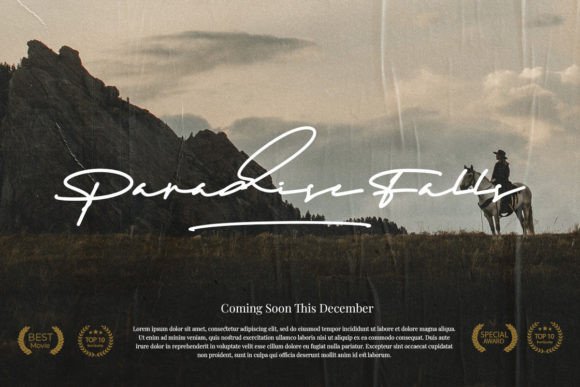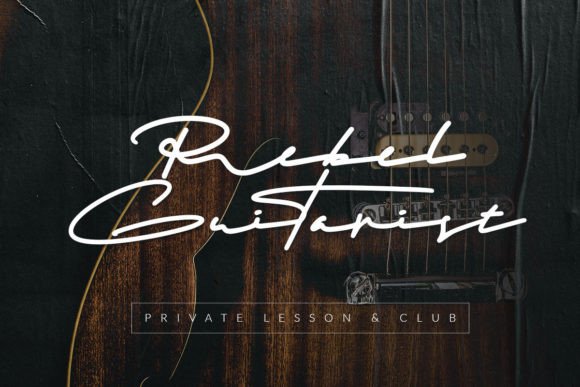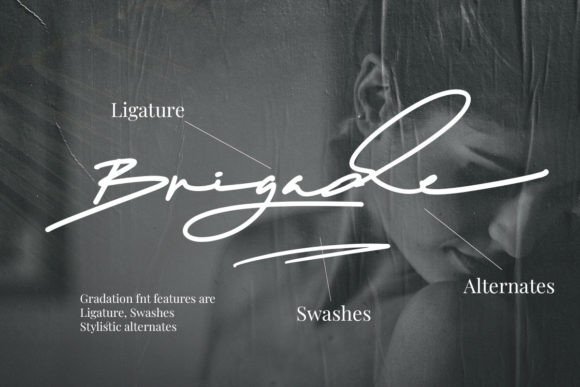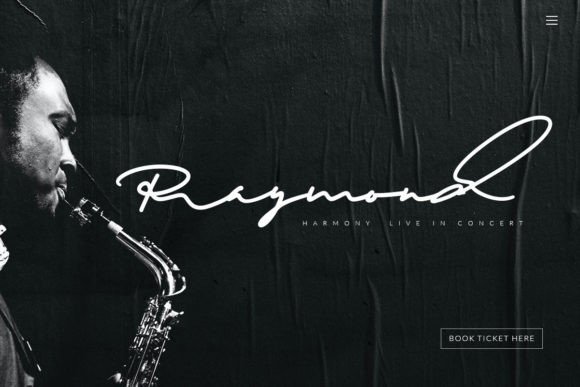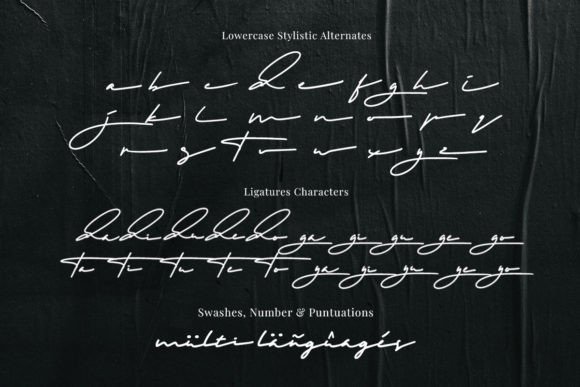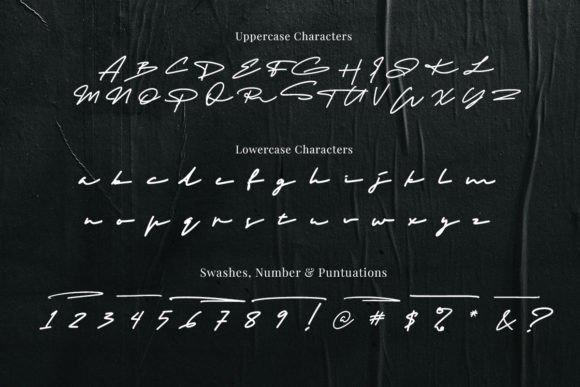
Introducing Gradation Font: Elevate Your Designs with a Realistic Handwritten Touch
Are you tired of using the same old fonts in your designs? Do you want to add a personal touch to your branding, invitations, and marketing materials? Look no further than Gradation Font, a realistic handwritten font that’s perfect for creating stunning designs. In this article, we’ll explore the features and benefits of Gradation Font, and show you how to make the most of this versatile font in your design projects.
What is Gradation Font?
Gradation Font is a beautifully crafted handwritten font that’s designed to bring a touch of realism to your designs. With its smooth, flowing lines and natural imperfections, Gradation Font is perfect for creating designs that look like they were written by hand. Whether you’re looking to create a unique logo, a stunning wedding invitation, or a compelling social media post, Gradation Font is the perfect choice.
What Can I Use Gradation Font For?
Gradation Font is an incredibly versatile font that can be used for a wide range of design projects. Here are just a few ideas to get you started:
- Signatures and Logos: Add a personal touch to your signatures and logos with Gradation Font.
- Branding and Marketing Materials: Use Gradation Font to create eye-catching branding and marketing materials, such as business cards, brochures, and flyers.
- Wedding Invitation Designs: Create beautiful, one-of-a-kind wedding invitations with Gradation Font.
- Social Media Posts: Add a touch of personality to your social media posts with Gradation Font.
- Advertisements: Use Gradation Font to create compelling advertisements that grab attention.
- Website Landing Pages: Add a personal touch to your website landing pages with Gradation Font.
- Product Packaging and Designs: Use Gradation Font to create eye-catching product packaging and designs.
- Labels and Photography: Add a touch of elegance to your labels and photography with Gradation Font.
- Watermarks: Use Gradation Font to create unique watermarks for your photos and designs.
Why Should I Use Gradation Font?
There are many reasons why Gradation Font is a great choice for your design projects. Here are just a few:
- Realistic Handwritten Look: Gradation Font has a natural, handwritten look that’s perfect for creating designs that look like they were written by hand.
- Versatile: Gradation Font can be used for a wide range of design projects, from branding and marketing materials to wedding invitations and social media posts.
- Easily Readable: Gradation Font is easy to read, even at small sizes, making it perfect for use in a variety of design projects.
- Unique and Personal: Gradation Font adds a touch of personality to your designs, making them stand out from the crowd.
- Experiment with Different Sizes and Colors: Gradation Font looks great in a variety of sizes and colors. Experiment to find the look that works best for your design.
- Combine with Other Fonts: Gradation Font pairs well with other fonts. Try combining it with a bold font for a striking contrast.
- Add Texture and Patterns: Add texture and patterns to your design to give it a more organic look.
Gradation Font is a versatile and beautiful handwritten font that’s perfect for creating stunning designs. With its realistic look and feel, Gradation Font is sure to elevate your designs and add a touch of personality to your branding, marketing materials, and more. So why wait? Add Gradation Font to your fonts library today and start creating spectacular designs!
- Realistic handwritten font
- Perfect for signatures, logos, branding, wedding invitation designs, social media posts, advertisements, website landing pages, product packaging, product designs, labels, photography, watermarks, and more
- Easy to read, even at small sizes
- Unique and personal touch